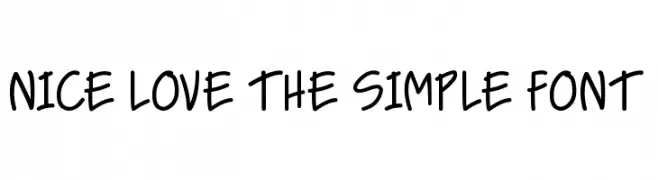
A cross-stitch patterned font with a handcrafted, decorative style.
A bold, futuristic font with geometric shapes and sharp angles.
A bold, geometric font with a futuristic, stencil-like design.
A modern, geometric font with rounded edges and consistent stroke widths.
A bold, slanted, and futuristic font with angular, geometric shapes.
A modern, geometric sans-serif font with clean lines and balanced proportions.
A pixelated, geometric font inspired by retro digital displays.
A bold, pixelated font with a geometric, digital style.
A playful dingbat font with whimsical illustrations and cartoonish style.
A whimsical collection of bold, playful silhouettes featuring dancers, animals, and objects.
Silhouette pictograms depicting people in diverse actions.
A collection of vintage-style illustrations and signage evoking mid-20th century Americana.
Abstract, circular, and decorative font with a sci-fi feel.
A playful, rounded font with bold, smooth curves.
A modern, rounded font with a clean and approachable design.
A playful, hand-drawn outline font with a whimsical and casual style.
A bold, playful font with a hand-drawn, casual style.
A playful, rounded font with bold, bubble-like characters and thick outlines.
A bold, angular font with a modern, urban style.
A casual, friendly handwritten font with smooth, rounded strokes.
An ornate, decorative font with distressed textures and elaborate flourishes.